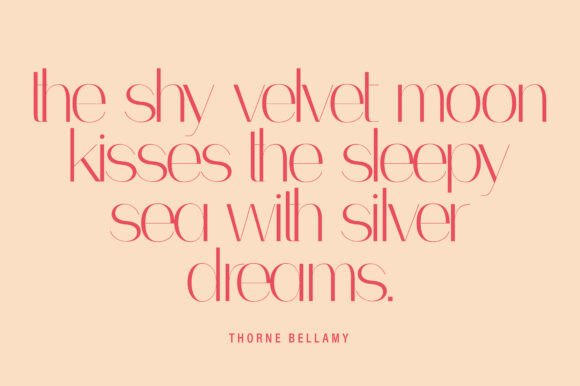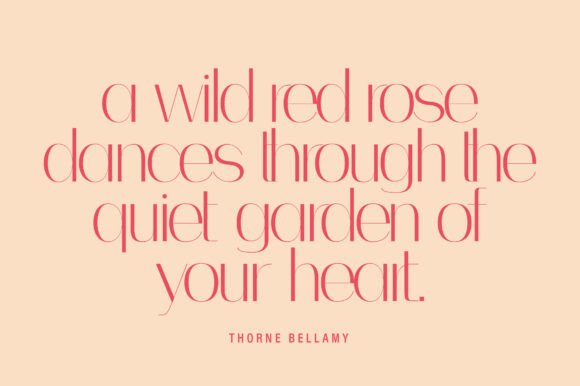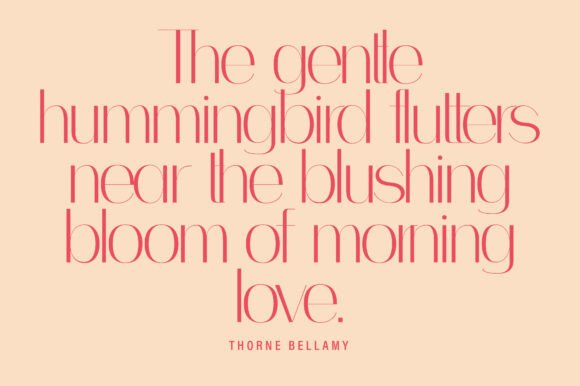
Introduction to Silk Font
As you sit in front of your computer, scrolling through design inspiration boards and searching for the perfect font to elevate your creative project, you stumble upon it – a sleek, modern sans serif that catches your eye and sparks a sense of excitement. The Silk Font is one of those rare gems that can instantly transform your design and leave a lasting impression on your audience.
Whether you’re a seasoned designer or just starting out, the Silk Font is a valuable resource that can help you achieve professional-looking results without breaking the bank. With its elegant design and clean geometry, this font is perfect for branding, editorial layouts, social media graphics, and packaging. Plus, it’s available for free download, making it an accessible design resource for creatives of all levels.
But what really sets the Silk Font apart is its ability to deliver high-quality results with a transparent background, making it a versatile choice for designers who value both beauty and function.
Key Features of Silk Font
- High-quality design resource with a unique, elegant style perfect for creative projects
- Perfect for use in graphic design, web design, and digital art projects
Honest Review: Silk Font
I recently stumbled upon the Silk Font, and I must say it’s been a game-changer for my creative projects. This free download has been a valuable addition to my design resource library.
One of the standout features of the Silk Font is its high-quality design. The fonts are expertly crafted, with a focus on clean lines and a professional aesthetic. This makes them perfect for use in a variety of contexts, from business cards to brochures.
- High-quality design that’s perfect for professional projects
However, there are a few limitations to be aware of: ⚠️
- Some users may find the font to be a bit too minimalist for their taste
- The font family is relatively small, so it may not be suitable for large-scale projects
Overall, I’m thoroughly impressed with the Silk Font. Its high-quality design and transparent background make it a valuable addition to any designer’s toolkit. While it may not be perfect for every project, I’d highly recommend it for anyone looking for a reliable and professional font.
Silk Font
Tips for Getting the Most Out of Silk Font
For optimal results, use the Silk Font on a transparent background to achieve a clean and modern look. You can also experiment with different font sizes and styles to create a visually appealing design.
The Silk Font is ideal for creating professional-looking designs, such as logos, business cards, and brochures. Its high-quality design makes it perfect for presentations, social media graphics, and marketing materials.